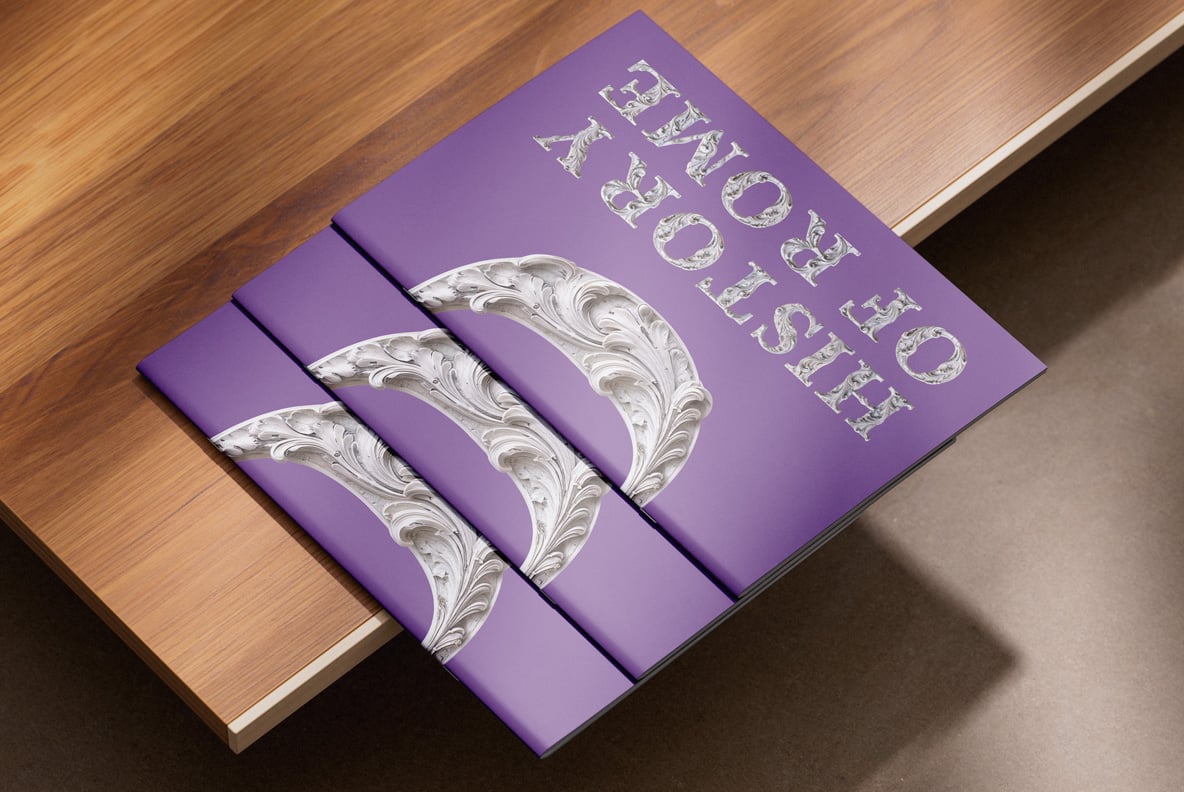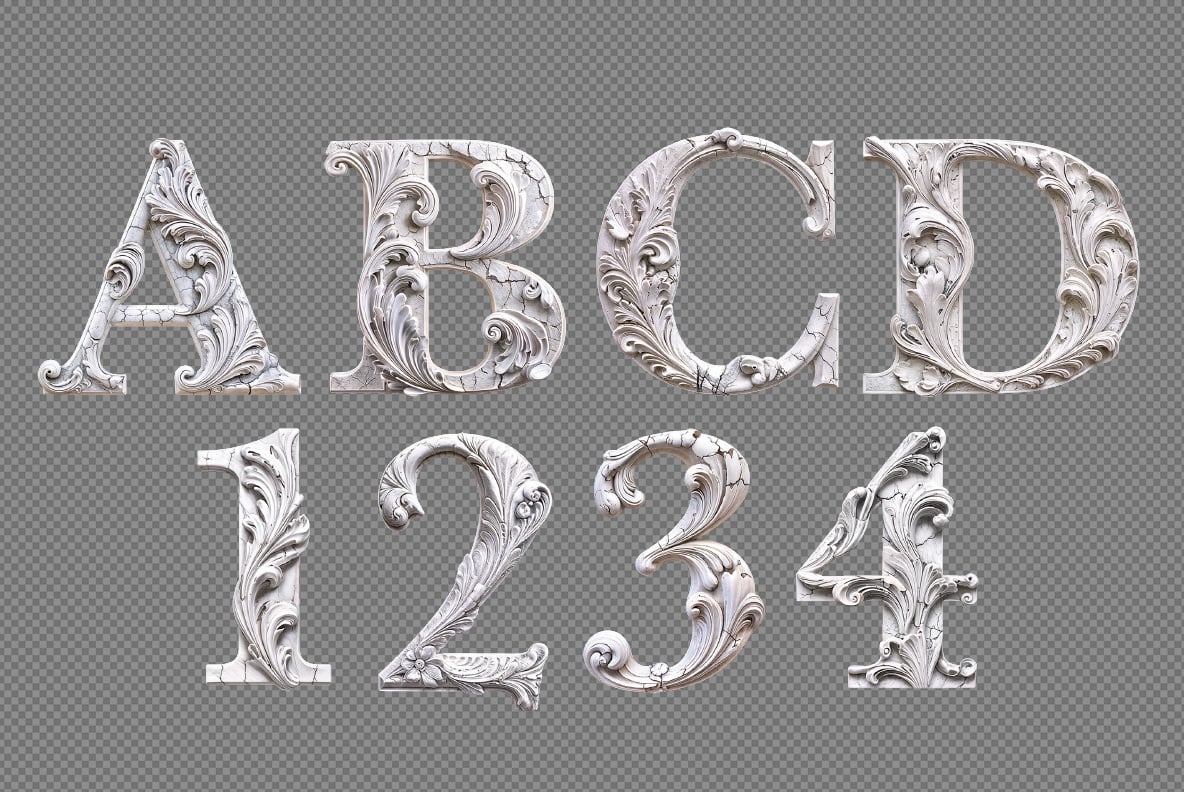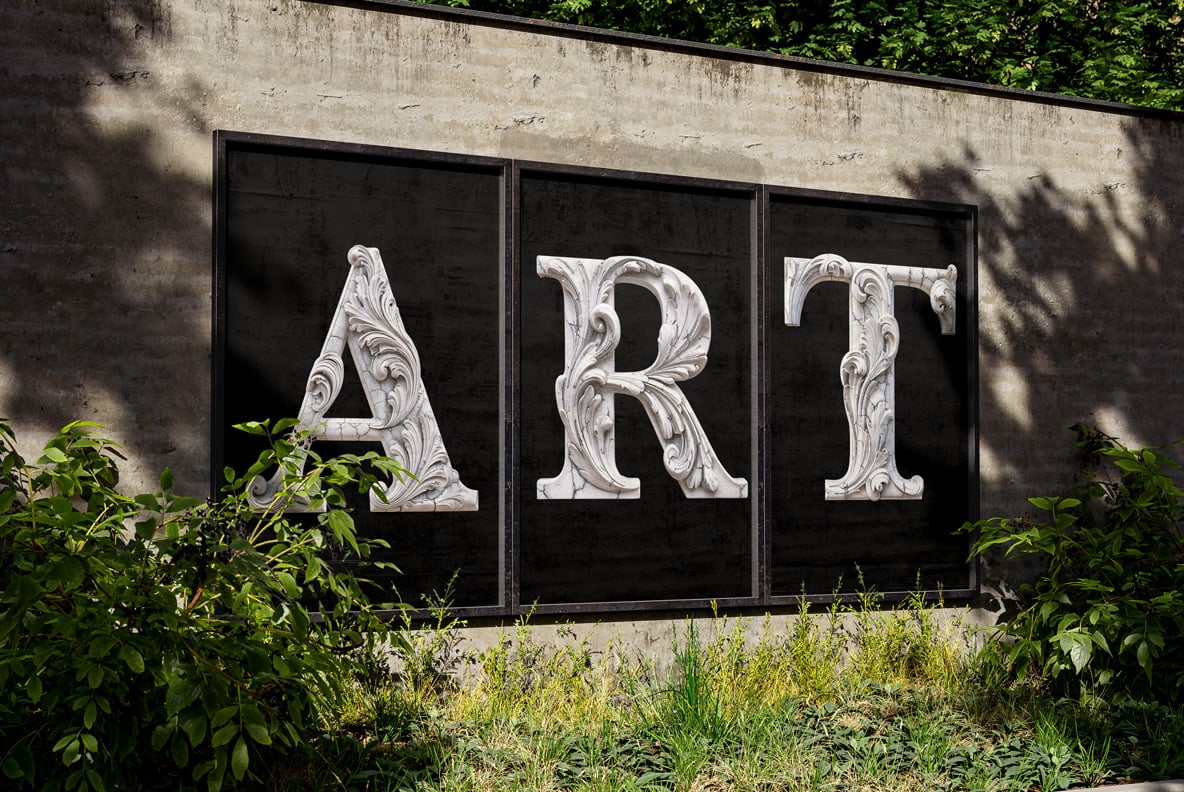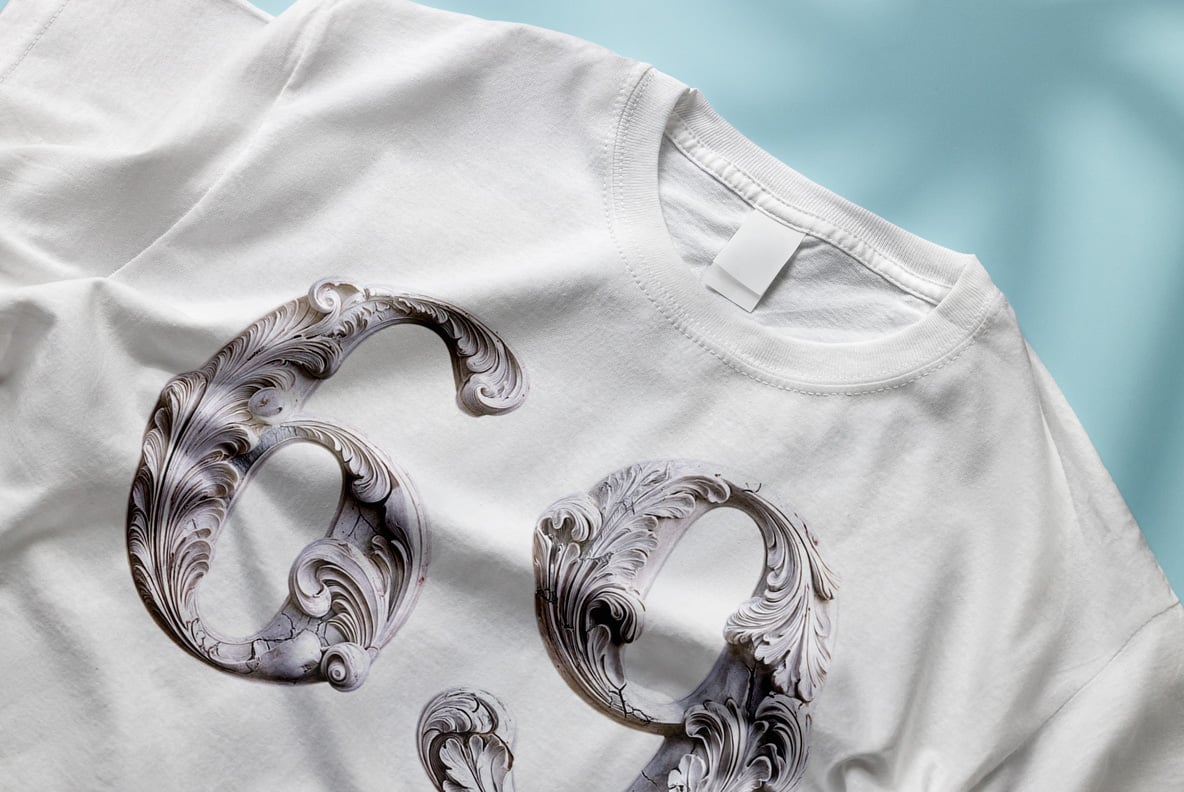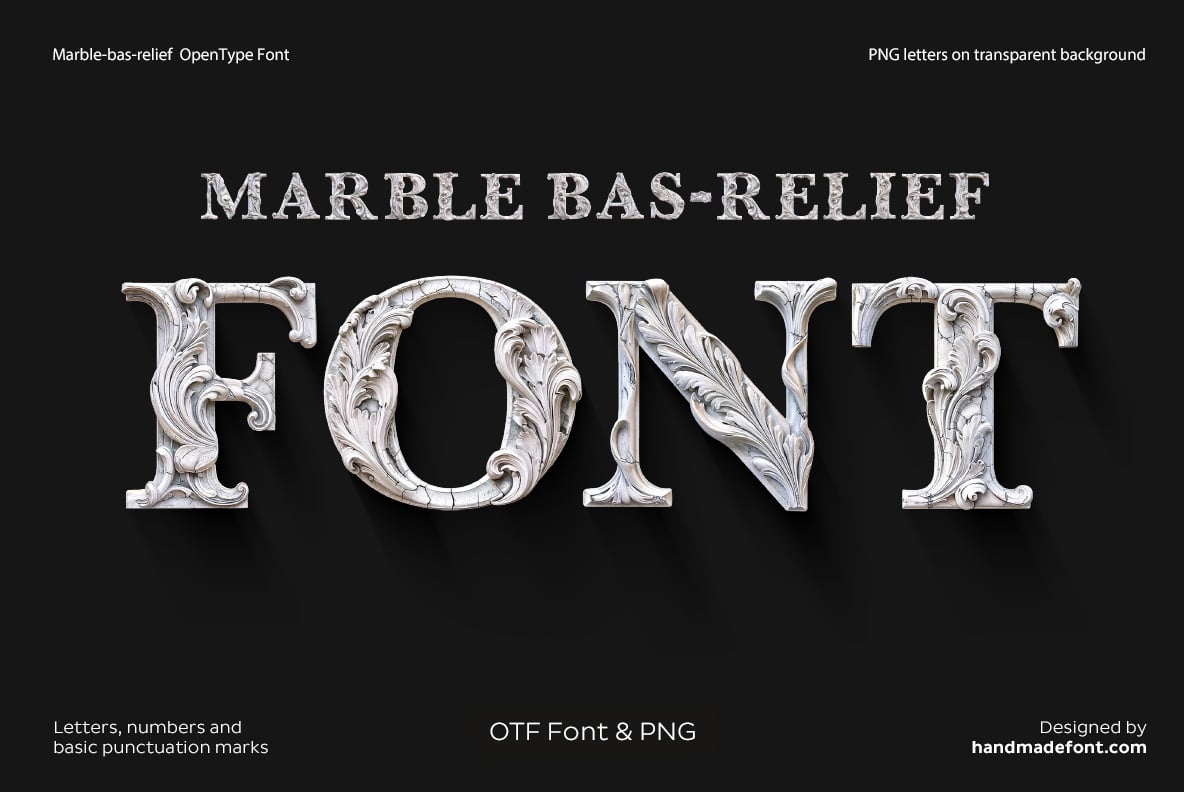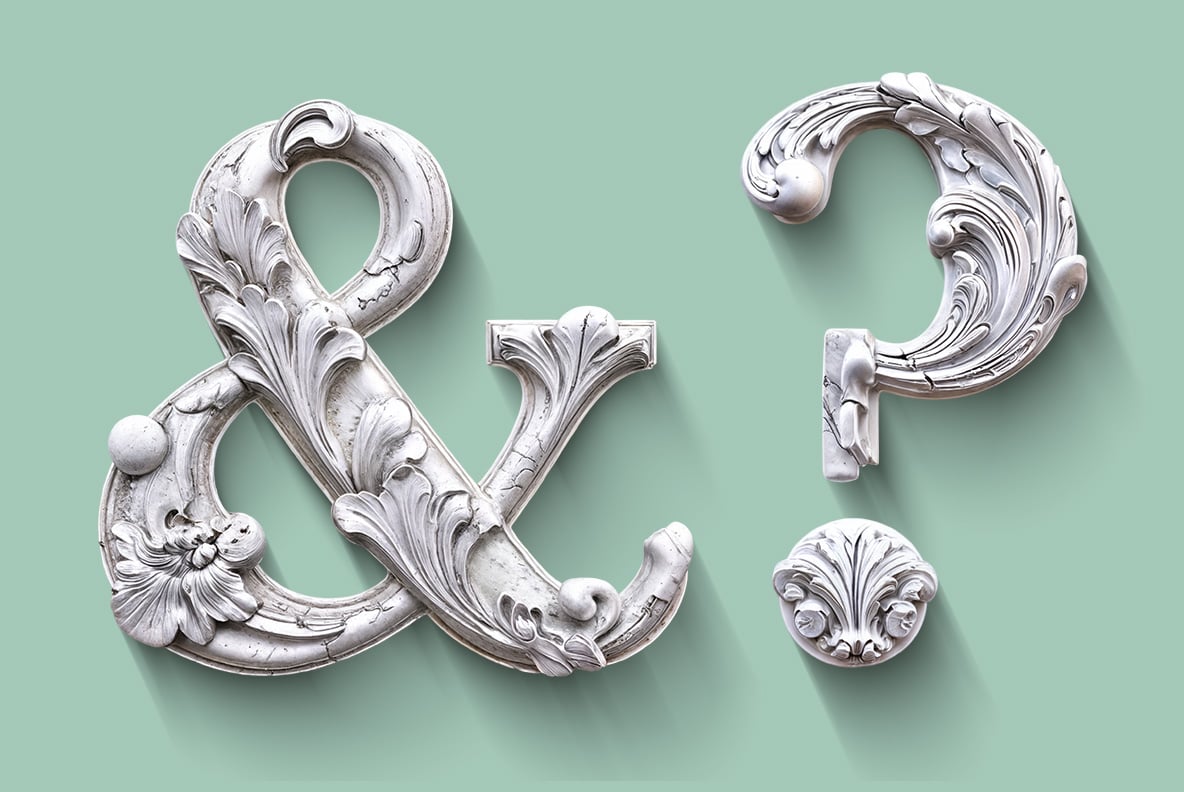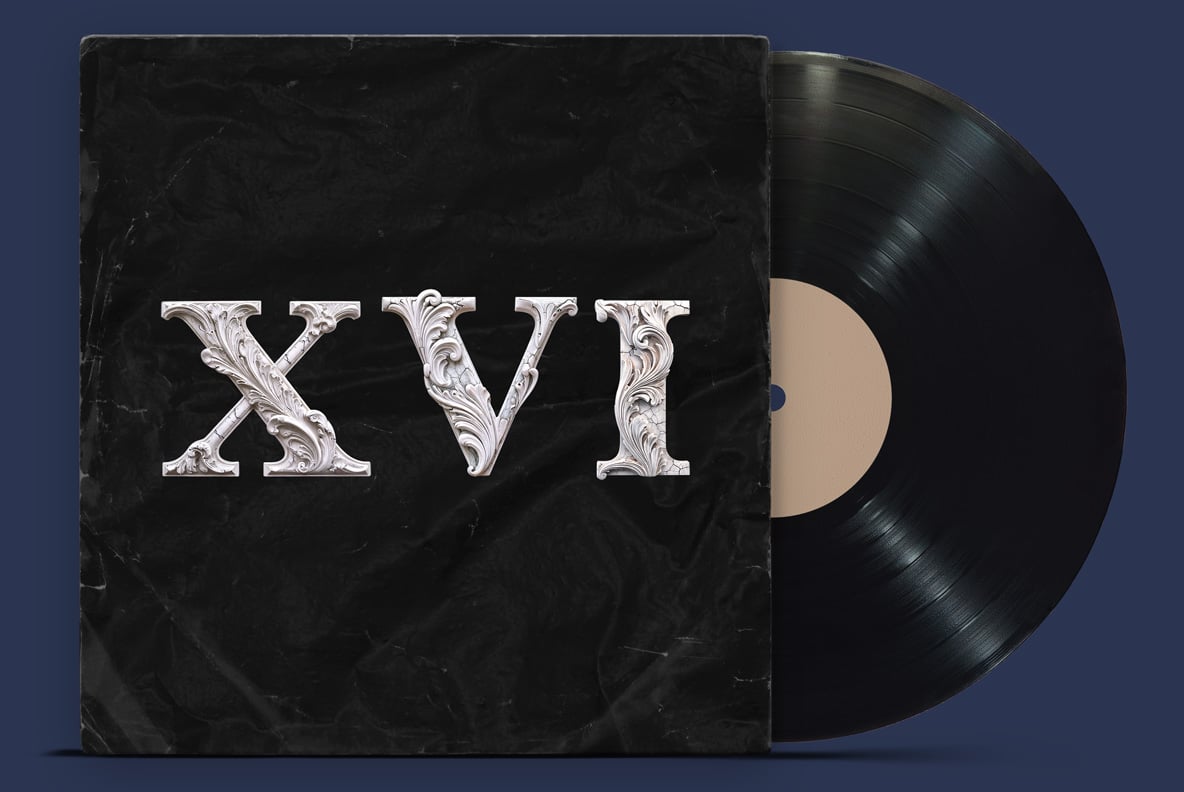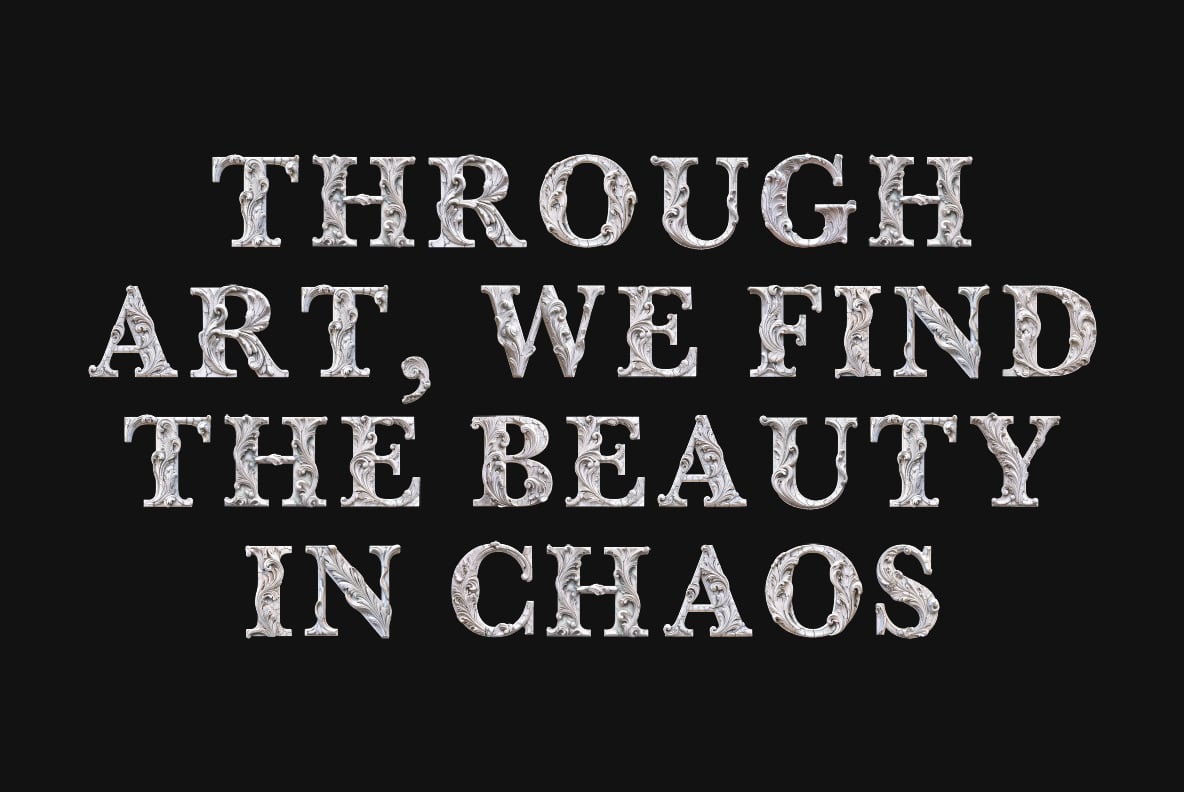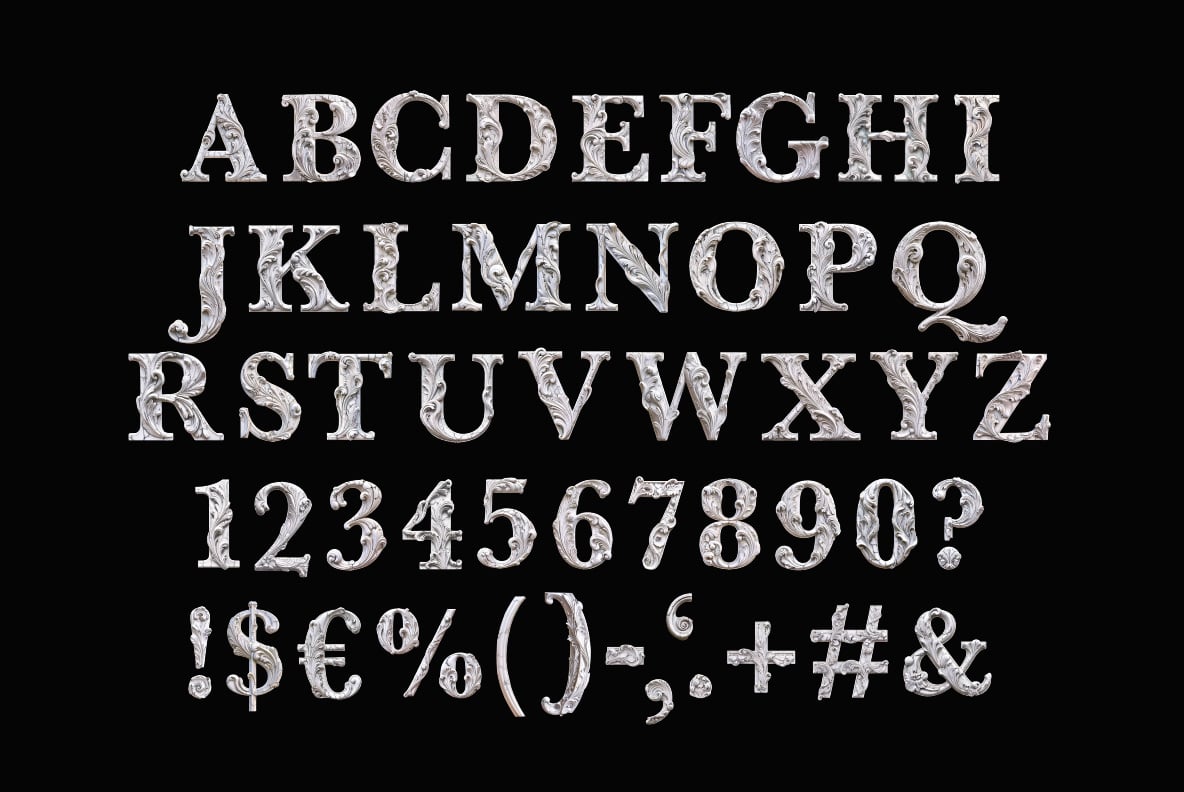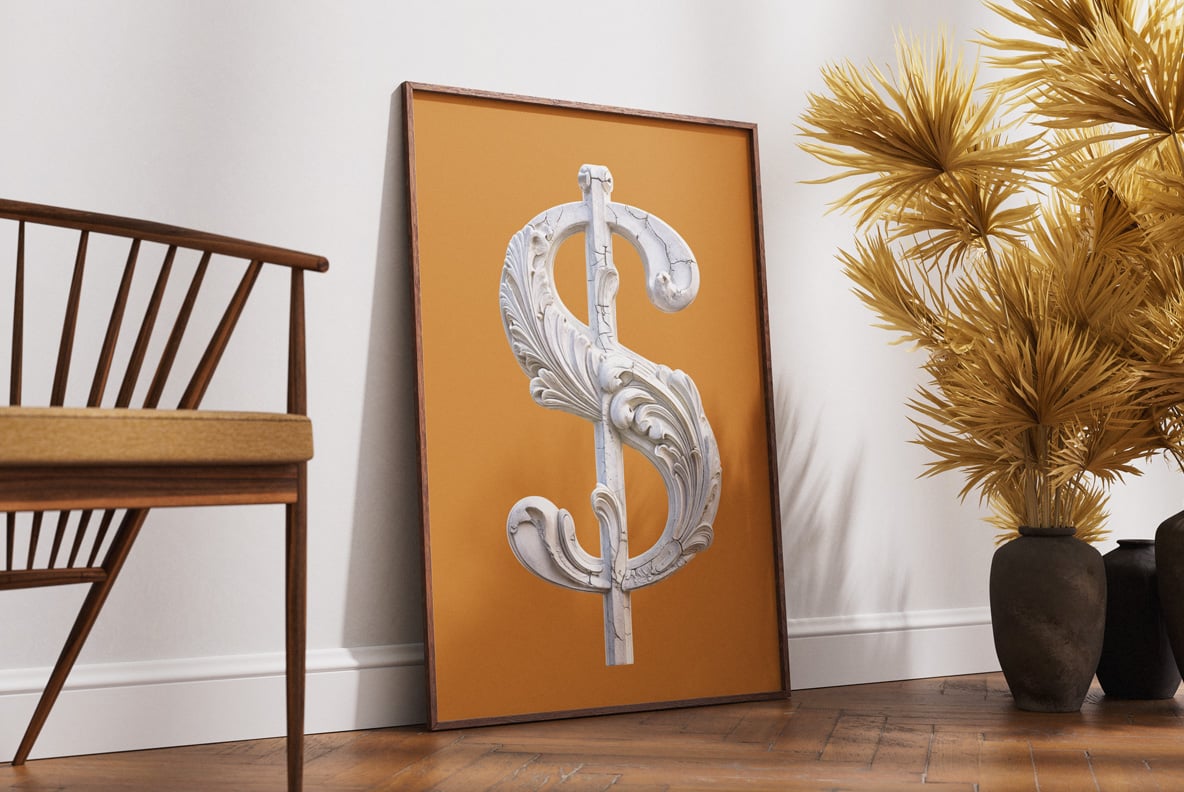
Marble bas-relief Font
Art meets typography in the exquisite Marble Bas-Relief Font, where each letter is a masterpiece of classical elegance. This bas-relief-inspired alphabet showcases intricate floral and scroll patterns etched into a marble texture, evoking the grandeur of Greek and Roman artistry. The typography captures the timeless beauty of bas-relief lettering, with delicate details that emphasize sophistication and craftsmanship. Subtle cracks and aged effects in the marble texture add an antique charm, making this font a perfect blend of modern design and historical aesthetics. Ideal for luxurious branding, invitations, or artistic projects, the Marble Bas-Relief Font transforms text into sculptural works of art, radiating a sense of refinement and timeless allure.